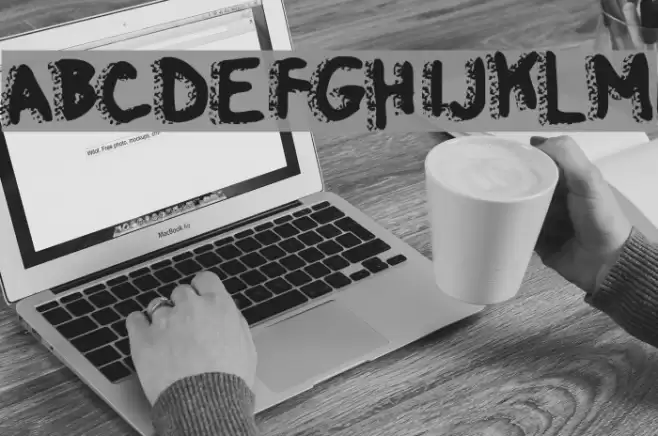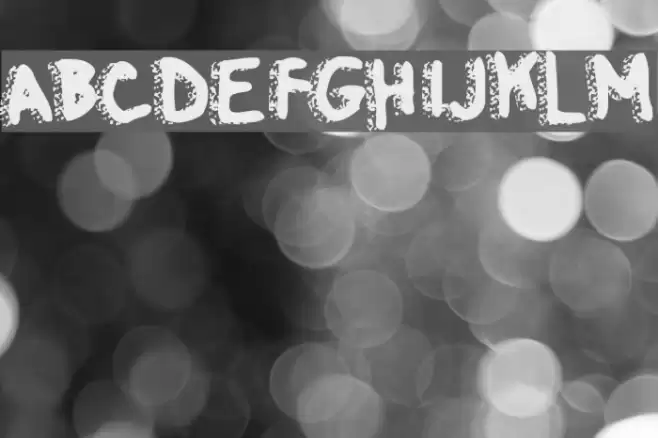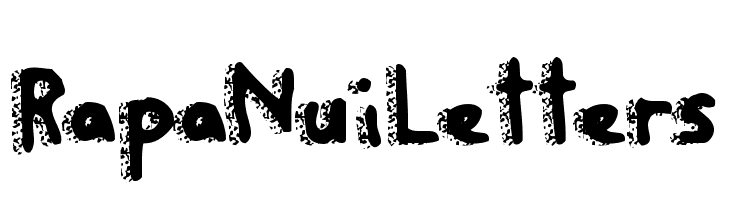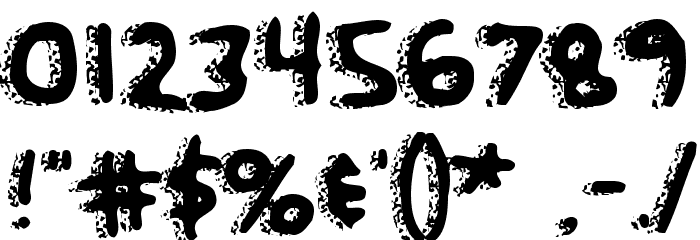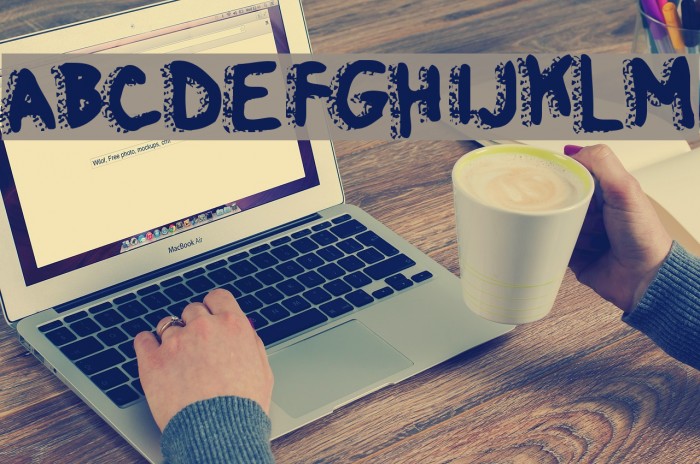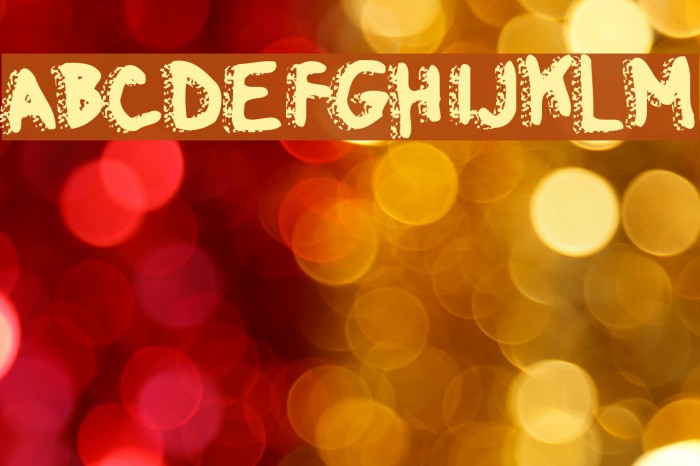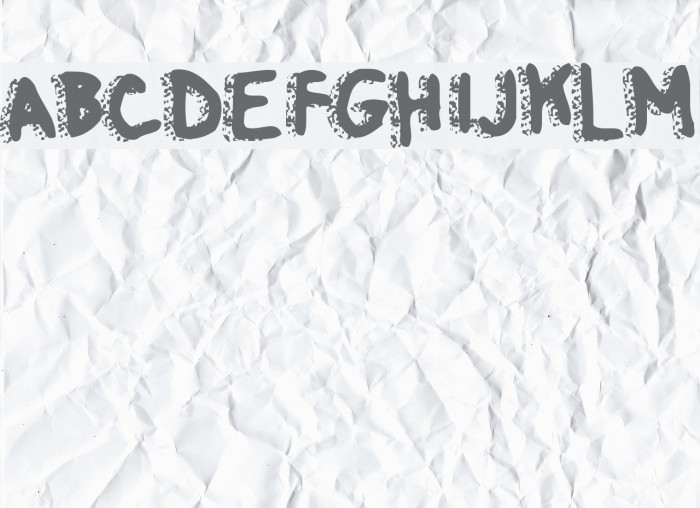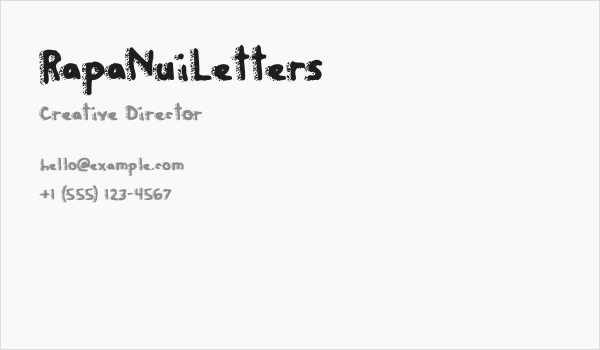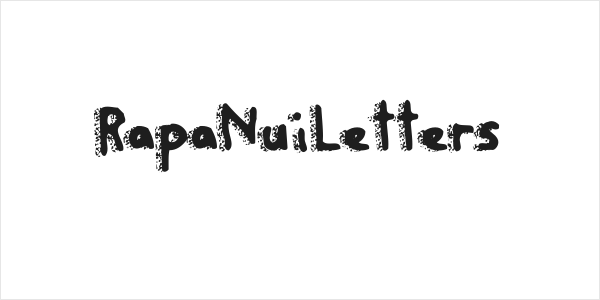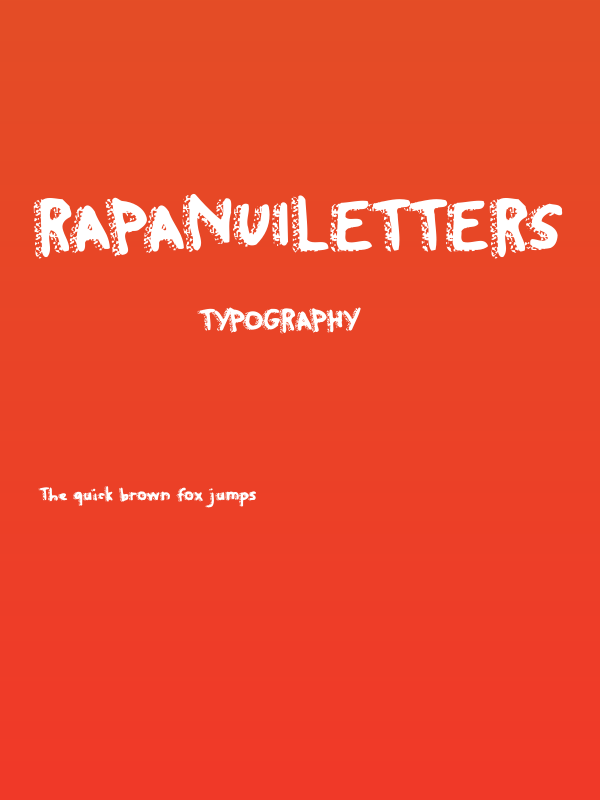
RapaNuiLetters Font
RapaNuiLetters Description
This font features a bold, textured style that mimics the appearance of hand-carved stone or wood. The characters are irregular and rugged, giving a sense of ancient or tribal artistry. The uppercase and lowercase letters maintain a consistent rough texture, while the numbers and special characters follow the same design ethos. This font is highly decorative and stands out due to its unique, organic appearance, making it suitable for projects that require a rustic or primitive aesthetic.
A bold, textured font with a rugged, hand-carved appearance from Uncategorized fonts.
- Proposed Projects: Ideal for use in themed event posters, adventure branding, cultural exhibitions, or any project seeking a primitive or tribal aesthetic.